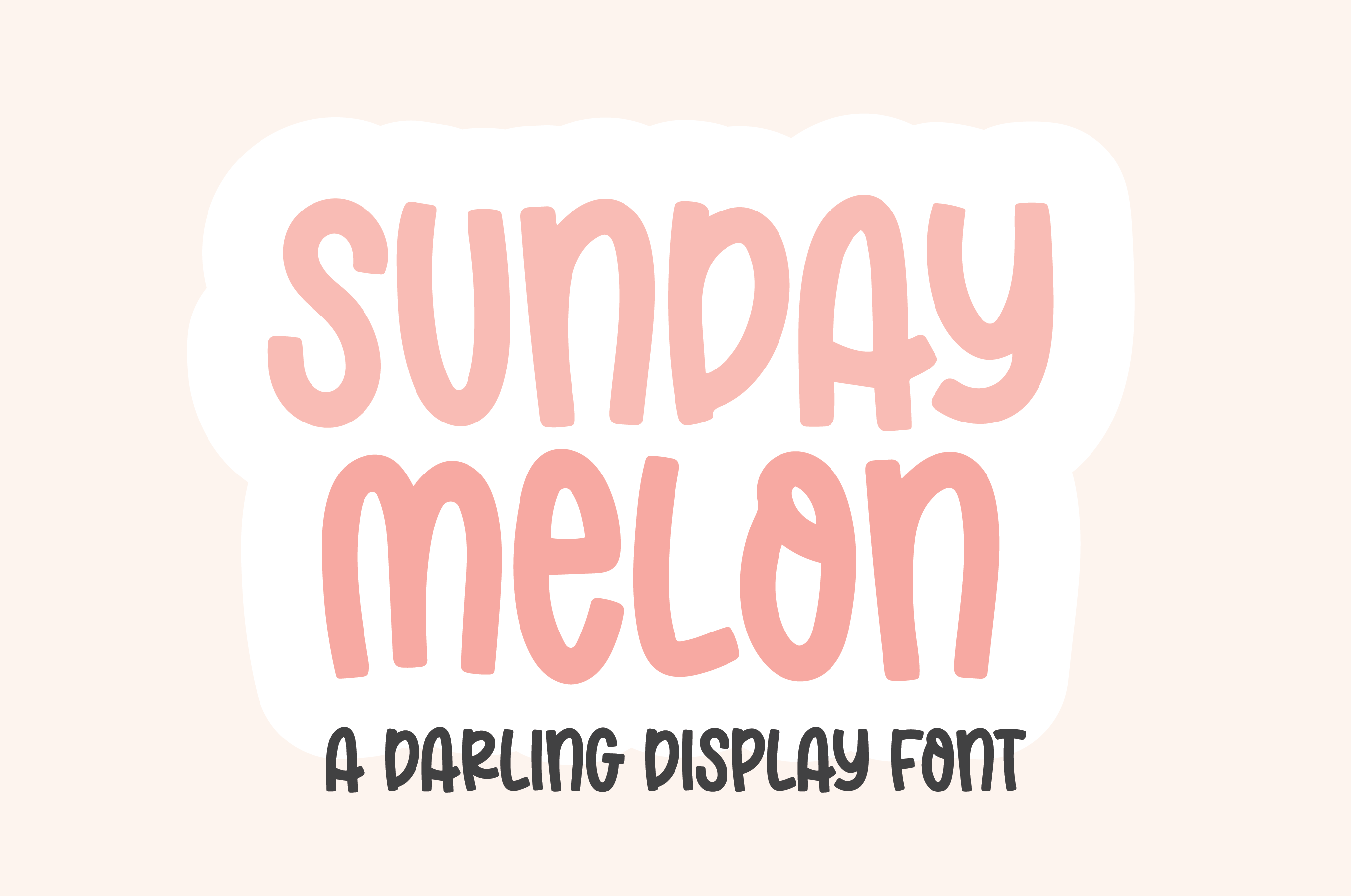
"Sunday Melon" Bold display font.
{ A typographic font hand-lettered with love by Dixie Type Co. }
Sunday Melon is a bold and playful display font that is perfect for social media or crafty projects. Use it for t-shirts, birthday invitations, and more! This font includes numbers and basic punctuation marks.